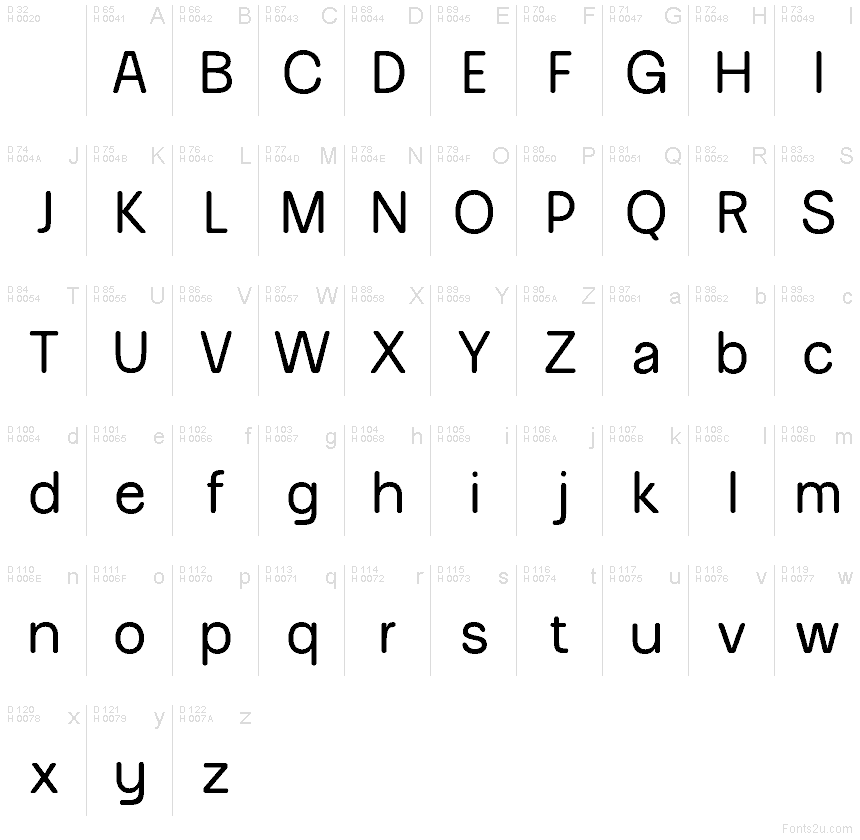
RavioRounded-Regular Demo
Ravio Rounded font by Craft Supply Co. is a modern display sans serif typeface with clean, minimalistic, and futuristic visual elements. The highly legible font has creative curves in its hollow letters and straight lines which stand out beautifully when placed on condensed or simplified backgrounds.